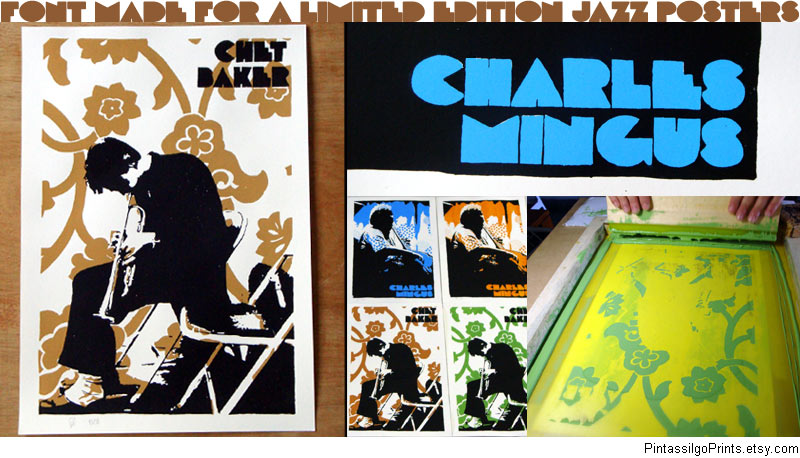
Made for a limited handprinted jazz posters series. This is our very first digital font. Recently we added some more glyphs and adjusted some more kerning pairs. Enjoy! |